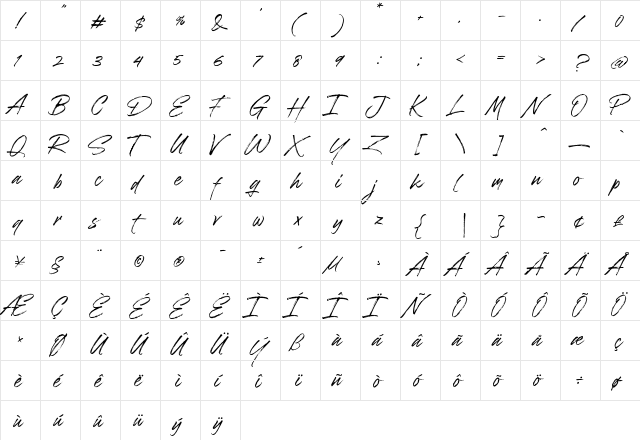
Brushwell Regular
Design Context for Brushwell Typeface
Brushwell brings a calligraphic fluidity to the page — its connecting strokes and expressive curves give it an unmistakably human quality.
Font Pairing: Combine Brushwell with a simple geometric sans for maximum contrast — the tension between flowing curves and clean structure is a classic typographic pairing.
Pro Tip: Use Brushwell for short runs of text — names, titles, or taglines. Extended body copy in script faces tires the eye quickly.